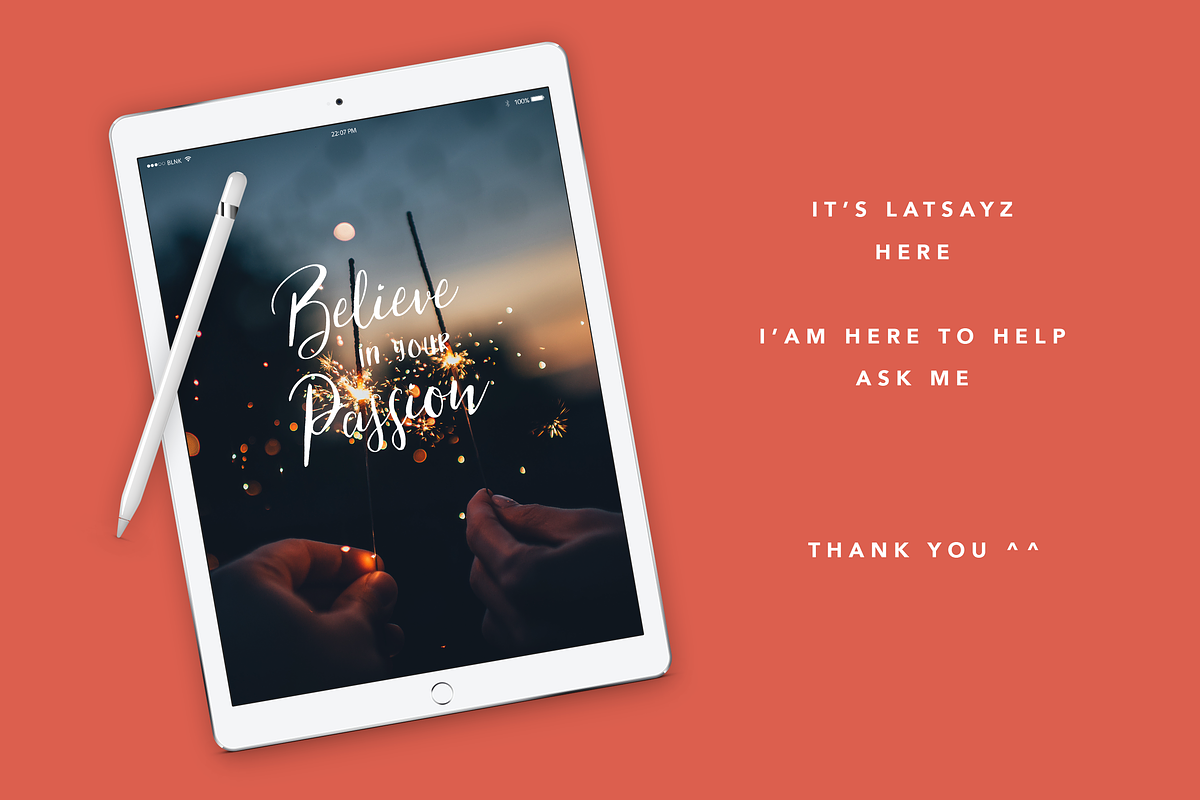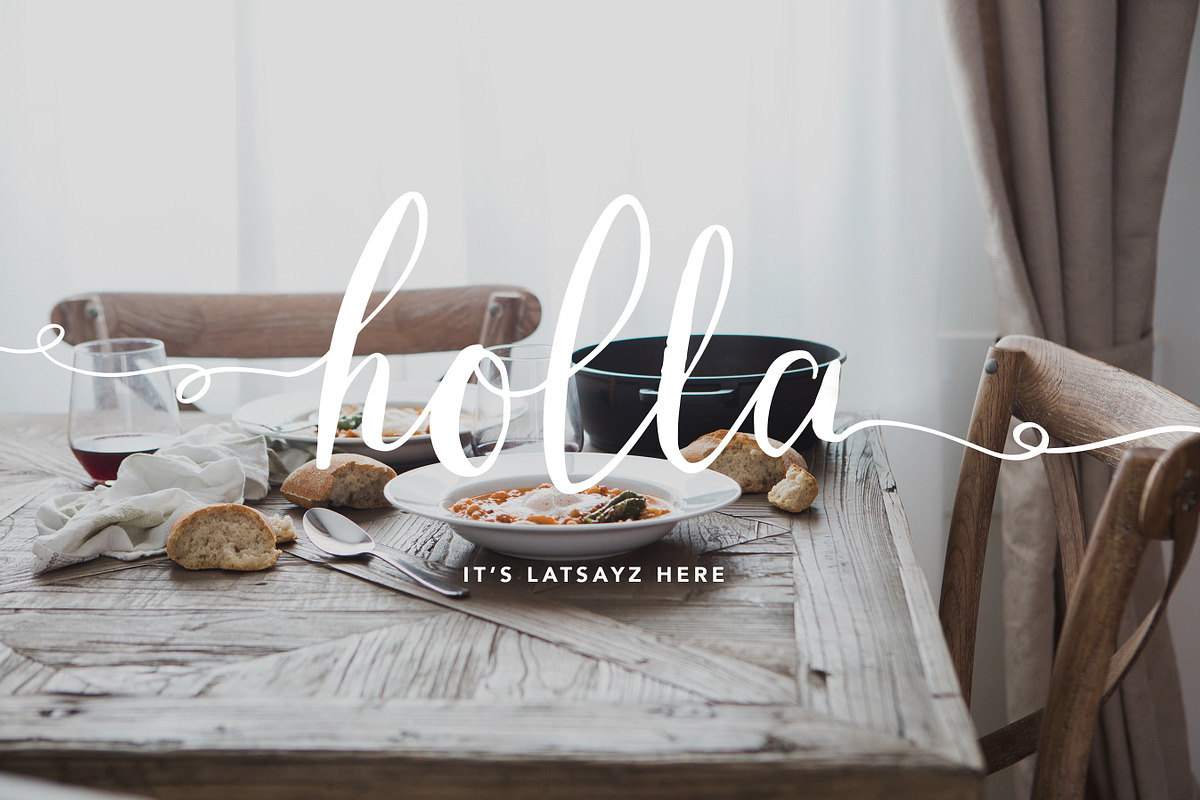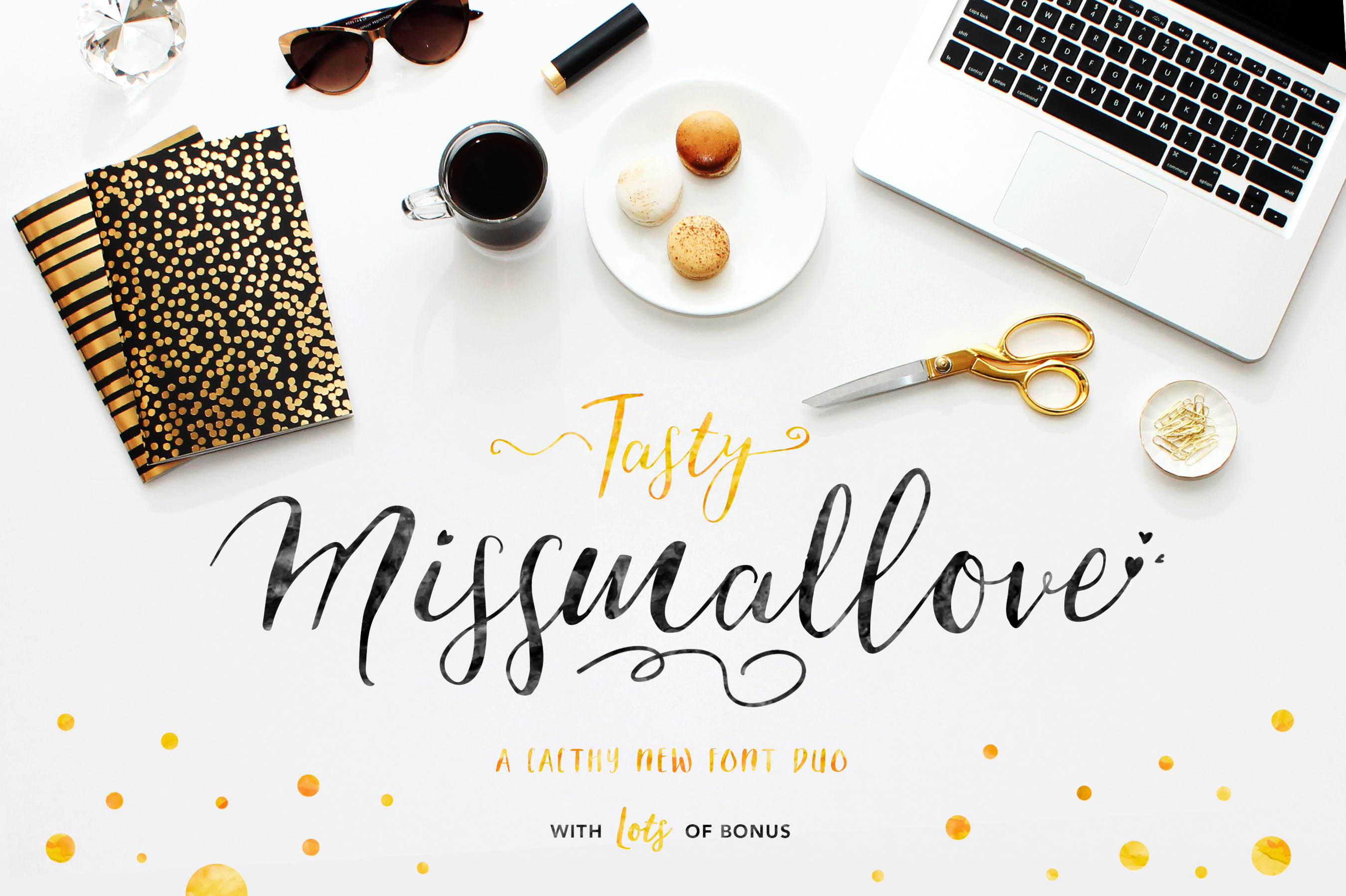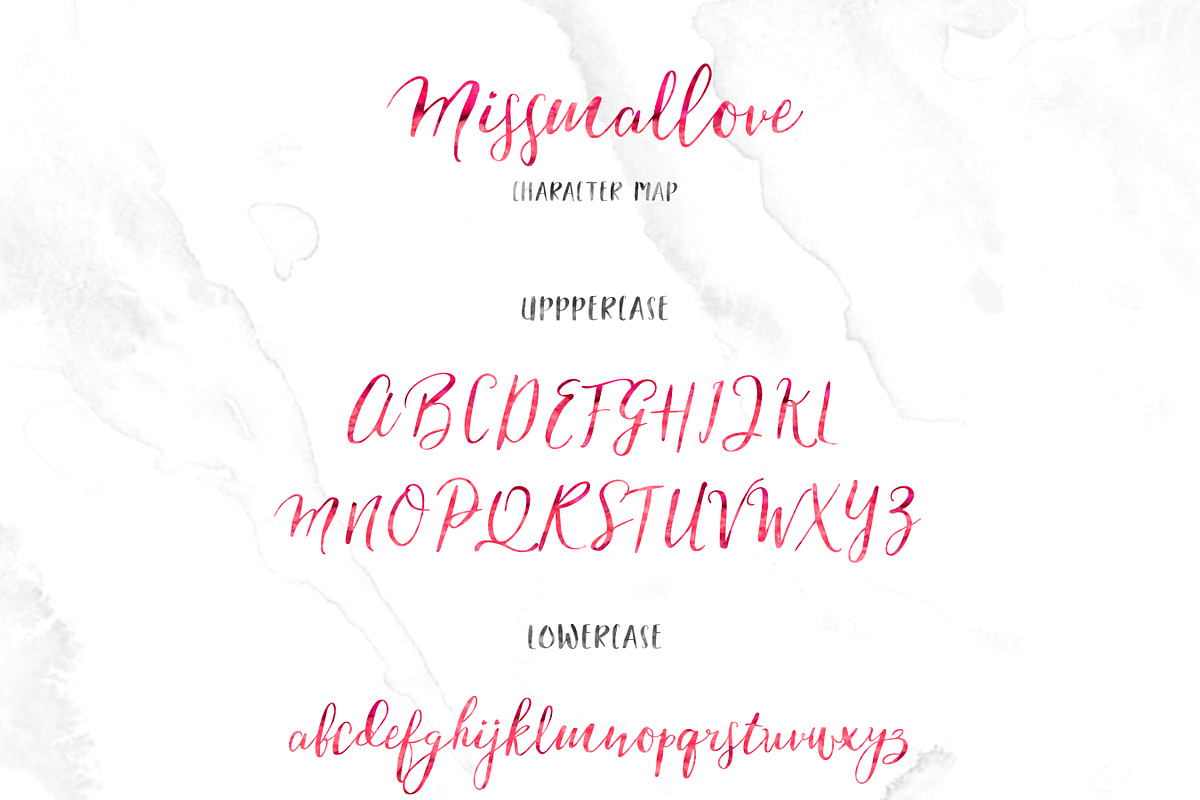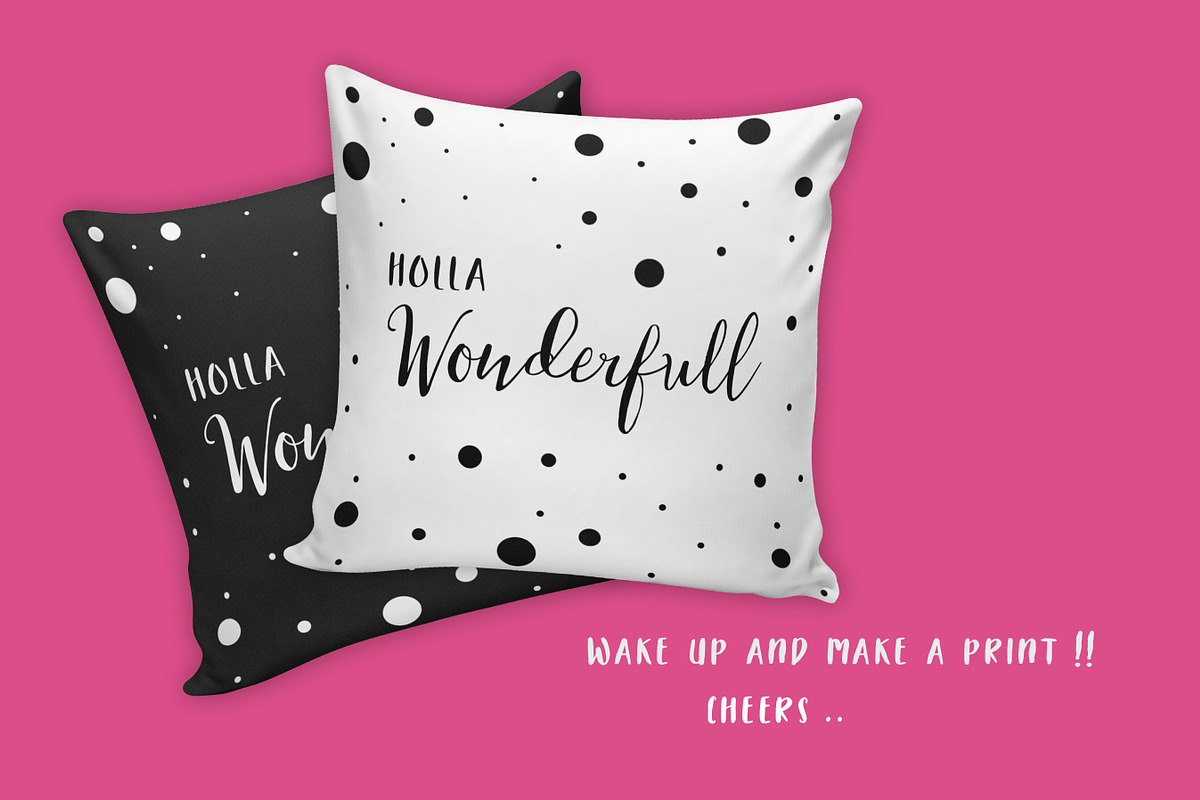
Its Tasty Missmallove Font Duo
Introducing my first font Tasty Missmallove a cacthy font duo with a lots of bonus perfect for your next project.
Tasty Missmallove great for wedding, event, invitation, escort card, table number, header menus, display, logos, slider blog, custom address, stamps, packaging, greeting card, etc.
Tasty Missmallove Features :
Lowercase
Numerals & Punctuations
Accents (Multilingual characters)